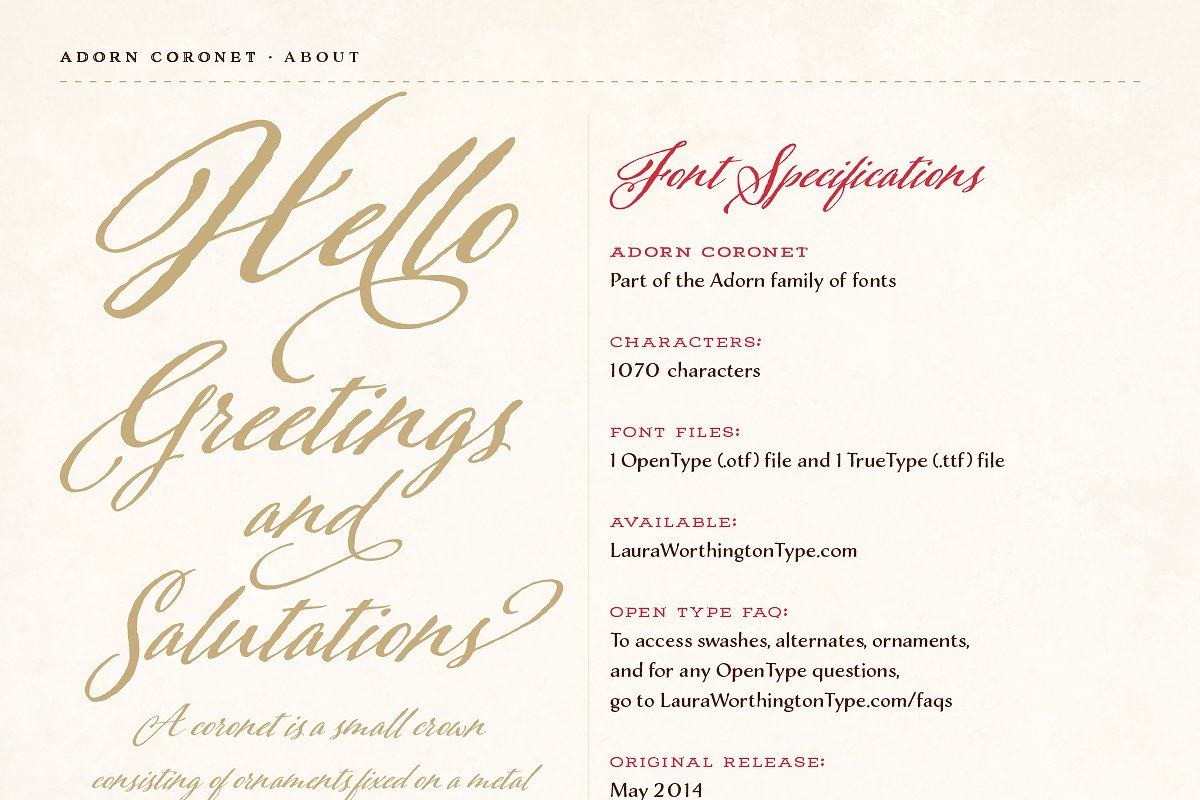
With a modern and sometimes quirky twist on the staid, almost corporate look of formal invitations, this family of lettering typefaces arms designers with a breathtakingly large number of faces that work harmoniously, despite the distinctiveness of each
Even larger and more multilayered than Worthington’s award-winning Charcuterie collection, Adorn offers seven display fonts, four script designs, monograms, ornaments, illustrations, banners, frames, and catchwords, Anyone in the business of helping others celebrate life—florists, menu designers, landscapers, caterers, tailors, event planners—will find fitting fonts in the Adorn collection
DIYers and designers will enjoy Adorn, too, for use in prints and drawings, quotes, invitations for gatherings, greeting cards, baby showers, gift cards, even wine bottles, While each font in the carefully orchestrated Adorn collection can stand alone, the particular combination of contrasting scripts, display fonts, romans, and the multitude of stylized fonts in Adorn’s extraordinary toolkit makes each designer’s creation one of a kind
MONOGRAMSThe jewel in the crown of this collection may be the three monogram design styles: Adorn Solo for one letter, Adorn Duo for a pair, and Adorn Trio for the classic three-letter monogram, Simply type in the lowercase letters and your monogram is finished
Solo is fresh and airy; Duo is more calligraphic, blossoming before your eyes; Trio is denser, with the center letter carrying a hint of art nouveau, Graphic designers will have their own uses for these; DIYers will see a takeoff point for jewelry, cards, invitations, rubber stamps—an endless source for personalizing and elevating the everyday, the special gathering, or a handmade creation
CATCHWORDS, BANNERS, FRAMES, AND ORNAMENTSAdorn offers four noteworthy “extra” fonts, though the creative professional will find them anything but superfluous: catchwords, banners, frames, and ornaments, Twenty Adorn Catchwords, all custom hand-lettered using a fountain pen calligraphic technique, provide a stunning way to display frequently used words to connect factual information or simply to bridge the gap between a lavish script and a hard-working display font
Twenty Adorn Banners, each with a mirrored image left and right element, are available, with a customized center that can be expanded to encapsulate a message or heading of any width, Adorn Frames is a highly customizable set of elements offering a multitude of approaches to creating frames of any width, height, and style
Use it for corner elements, borders, or to make an actual frame, Adorn Frames features twenty corner elements and nine sets of top, bottom, and side pieces, along with a detailed description in the User’s Guide on how to construct the frames, In keeping with the spirit of the collection, Adorn Ornaments gift the designer with 130 unique ornamental illustrations
From works inspired by nature, to stunning wreaths, embellishments, rules, and iconic wedding symbols, Adorn Ornaments are meant to accompany the scripts, rather than restricting them to a theme, SCRIPT TYPEFACESAdorn’s script typefaces, using modern lettering with a cursive impression, are Coronet, Pomander, Garland, and Bouquet
Their common origins—the fountain pen and a singular design aesthetic—give them a cohesive look, one that carries the warmth of the human hand, Adorn Coronet’s script face exemplifies the Adorn spirit of both modernizing and personalizing typefaces
It’s crisp, angular, and straightforward; it adds a snappy yet subtle edginess, even a slight sense of masculinity, to a design, With 268 swashes and alternate letterforms, The script face, Adorn Pomander, is a whimsical butterfly of a font: light and airy
The uppercase letters, especially, break the rules of traditional classic calligraphy, With 390 swashes and alternate letterforms, Adorn Garland is a script face that runs along a different, and somewhat “vintage” direction, Rather than deriving its strength from a heavy skeleton or structure, it uses its sense of contrast, its light touch upon the page, and its elongation to provide a visual break – it can function as a long string, rule, or dividing line
With 166 alternate letterforms, At the other end of the spectrum is the naiveté and giddiness of Adorn Bouquet, It is intentionally irregular, created with a practiced hand to communicate joy—uncontrolled and informal, With 240 alternate letterforms
ADORN ROMANAdorn Roman is both a display and text typeface marked by its traditional calligraphic hand, It was created with a chisel-edged calligraphy pen, and even digitized it has the look of what a designer might create with a calligraphic tool,